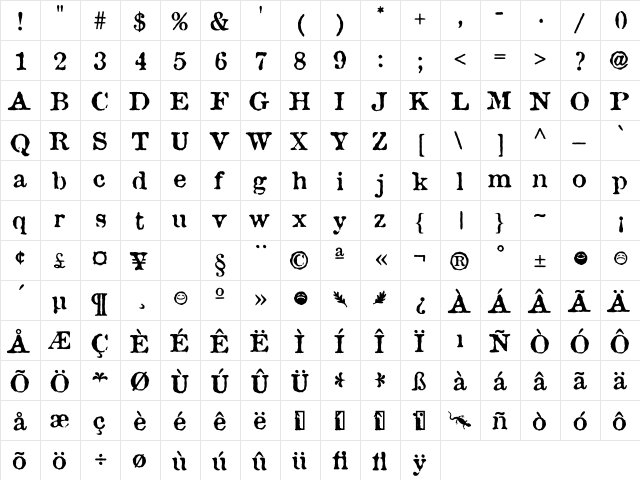
Attic Regular
Design Context for Attic Typeface
Attic takes a measured approach to typography — its balanced proportions and neutral character make it a reliable workhorse for both digital and print work.